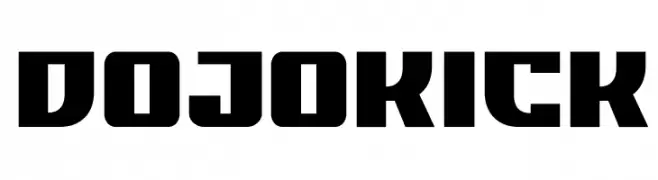
( Design Dojo )
A bold, geometric font with sharp angles and a modern aesthetic.
( Design Dojo )
A playful handwritten font with rounded, smooth strokes.
( Design Dojo )
A playful, handwritten font with bold, rounded characters and a whimsical style.
( Dismantle Destroy - Matthew Tyndall - creativemarket.com/Dismantle )
A bold, geometric font with a modern and clean aesthetic.
( Dominique Demetz )
A playful, handwritten font with tall, narrow letters and smooth strokes.
( Dominique Demetz )
A tall, narrow handwritten font with thin strokes and elongated letterforms.
( Dominique Demetz )
A playful, handwritten script font with bold uppercase and fluid lowercase letters.
( Dominique Demetz )
A graceful and flowing script font with elegant, connected characters.
( Dominique Demetz )
A playful, hand-drawn font with bold, textured characters.
( Dominique Demetz )
A classic serif font with a slight slant and medium contrast, offering elegance and readability.